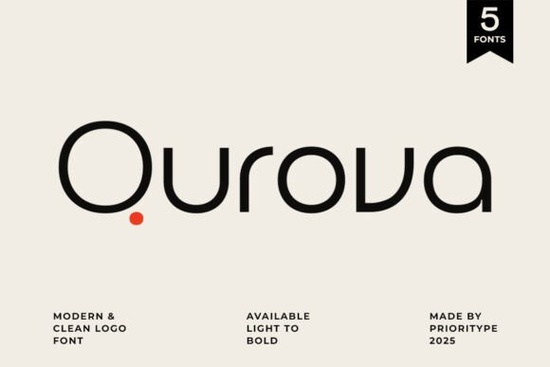
If you're looking for a clean, professional font that works well across logos, branding materials, and digital designs, Qurova Font is worth checking out. It’s a modern sans-serif typeface built with versatility in mind perfect for small businesses, print-on-demand sellers, and creatives who want reliable typography without the fuss.
What makes Qurova Font stand out?
Qurova delivers a balanced look with sharp, consistent lines and subtle character variations that feel both contemporary and timeless. Unlike many fonts that only offer a few weights, it includes a full range from Thin to Bold so you can create visual hierarchy easily within your designs. Whether you’re designing a business card or a website header, this flexibility helps maintain consistency across projects.
The font family supports multiple languages and special characters, which is helpful if you’re creating content for international audiences or working with multilingual brands. Its neutral yet refined style fits seamlessly into corporate identities, tech startups, fashion labels, and even lifestyle brands.
How can you use Qurova Font in real projects?
- Logos & Branding: Use the bold or medium weights for strong, memorable logos. The clean structure ensures readability at small sizes.
- Website Headers: Pair Qurova with a simple serif or light-weight font for body text to create contrast while keeping the design modern.
- Print Materials: Great for flyers, packaging, and brochures where clarity and professionalism matter.
- Merchandise Design: Ideal for t-shirts, mugs, and tote bags, especially when paired with minimalist graphics.
Because it’s designed for professional use, Qurova handles scaling well whether you’re printing a poster or displaying text on a mobile screen.
Why designers trust this font
Many designers appreciate how predictable and stable Qurova feels in different layouts. There are no unexpected gaps, awkward spacing, or odd character shapes. It behaves consistently across platforms, which reduces rework during the design process. You won’t spend extra time adjusting kerning or fixing alignment issues.
For those who want to see more modern sans-serif styles, Qurova Font is part of a growing collection that focuses on usability and elegance. These fonts are often used in real-world design scenarios, not just for show.
Final thoughts: Is Qurova Font right for your next project?
If you need a dependable, multi-use font that looks polished and professional across various formats, Qurova fits the bill. It doesn’t demand attention it simply does its job quietly and well. That kind of reliability is valuable when you’re balancing creativity with deadlines.
Whether you’re building a brand from scratch or refining an existing identity, having a solid foundation in typography makes a noticeable difference. And Qurova gives you that foundation without complexity.